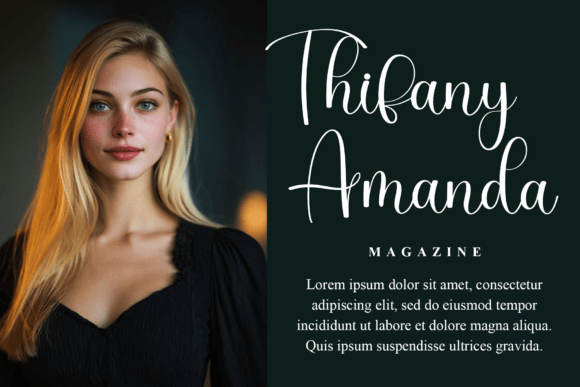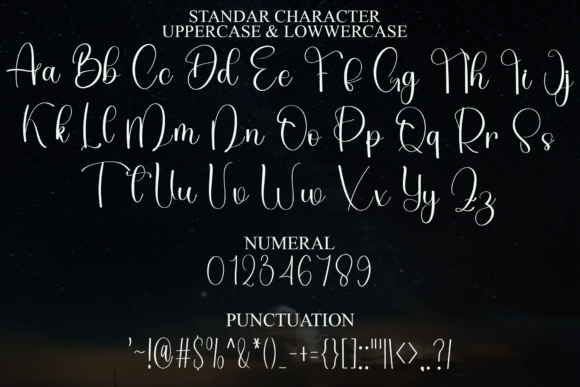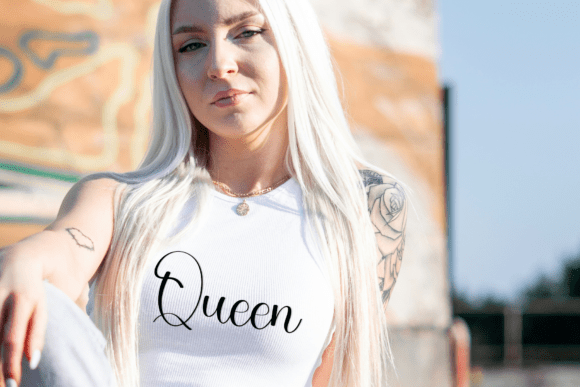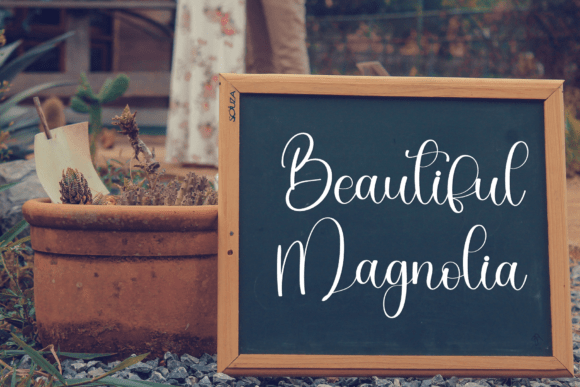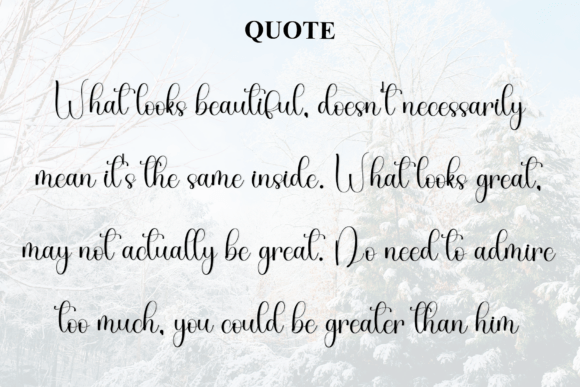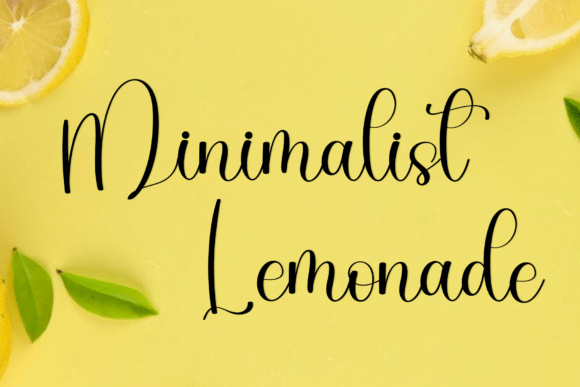
Introducing Bookmarks Font: Elevate Your Design with Elegance and Sophistication
In the world of typography, few fonts manage to convey a sense of elegance, modernity, and handmade charm as effectively as Bookmarks. This beautiful script font is designed to bring a touch of refinement and sophistication to any design project, from literary-themed branding to boutique editorial headers, artisanal stationery, and lifestyle blog titles. With its unique blend of fluidity and precision, Bookmarks Font is poised to become a favorite among designers and crafters looking for a high-end typographic solution.
The Characteristics of Bookmarks Font
Bookmarks Font boasts a range of distinctive features that set it apart from other script fonts. Its gentle, upright posture provides a sense of stability and balance, while its consistent monolinear strokes create a sense of fluidity and movement. The font’s looped ascenders add a touch of elegance and sophistication, giving the text a rhythmic, hand-penned quality that feels both personal and luxurious.
One of the defining characteristics of Bookmarks Font is the organic connection between letterforms. This subtle detail gives the text a sense of continuity and flow, creating a beautiful, hand-crafted aesthetic that is perfect for designs that require a personal touch. Whether you’re working on a literary-themed branding project or a boutique editorial header, Bookmarks Font is sure to impress.
Bookmarks Font is a versatile typographic solution that is perfect for a wide range of design applications. Here are just a few examples of how you can use this beautiful font to elevate your designs:
• Literary-themed branding: Bookmarks Font is a natural fit for authors, publishers, and literary organizations looking for a sophisticated and elegant typographic solution. Use it to create a logo, title page, or book cover that exudes refinement and culture.
• Boutique editorial headers: Add a touch of luxury to your editorial designs with Bookmarks Font. Its elegant, hand-penned quality makes it perfect for high-end magazine and newspaper headers, as well as book titles and subtitles.
• Artisanal stationery: Create beautiful, hand-crafted stationery with Bookmarks Font. Its organic, looped ascenders and gentle posture make it perfect for wedding invitations, greeting cards, and other special occasion stationery.
• Sophisticated lifestyle blog titles: Elevate your lifestyle blog with Bookmarks Font. Its modern, refined aesthetic makes it perfect for titles and headings that require a touch of elegance and sophistication.
Why Choose Bookmarks Font?
With so many script fonts on the market, why choose Bookmarks Font? Here are just a few reasons why designers and crafters are falling in love with this beautiful typographic solution:
• Unique and distinctive: Bookmarks Font has a unique and distinctive aesthetic that sets it apart from other script fonts. Its organic connections and looped ascenders create a beautiful, hand-crafted quality that is hard to find in digital typography.
• High-end aesthetic: Bookmarks Font has a luxurious, high-end aesthetic that is perfect for designers and crafters who want to create sophisticated, refined designs.
• Versatile: Bookmarks Font is a versatile typographic solution that can be used for a wide range of design applications, from literary-themed branding to boutique editorial headers and artisanal stationery.
• Elegant and modern: Bookmarks Font combines elegance and modernity in a way that is hard to find in digital typography. Its gentle posture and fluid strokes create a sense of movement and energy, while its looped ascenders add a touch of sophistication and refinement.
Bookmarks Font is a beautiful, elegant script font that is perfect for designers and crafters looking for a sophisticated and refined typographic solution. With its unique blend of fluidity and precision, organic connections, and looped ascenders, this font is sure to elevate any design project to new heights. Whether you’re working on literary-themed branding, boutique editorial headers, artisanal stationery, or lifestyle blog titles, Bookmarks Font is a premier choice that is sure to impress.